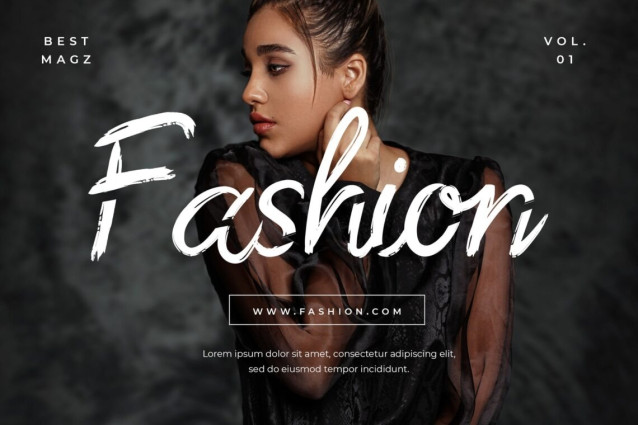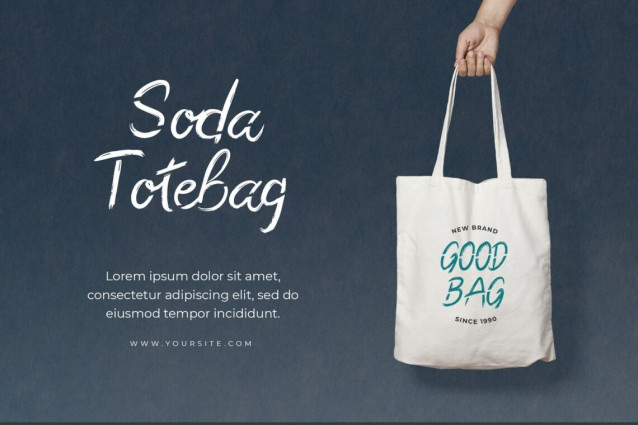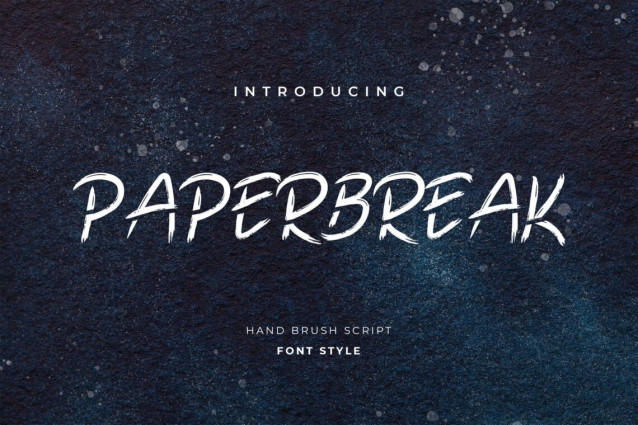
Paperbreak Brush Handwritten Font
Paperbreak Brush Handwritten Font is a natural brush style and there are elements of modern painting style. The combination of brush strokes on each side of the font and horizontal splinters makes this font look stylish, unique, and striking. It is suitable for various design projects that want to take a modern and stylized theme. It is suitable for various projects and branding, such as prints, logos, fashion covers, badges, labels, packaging designs, posters, prints, T-shirts, clothing, wall paintings, headlines, posters, cafes, salons, and other inspirational designs.